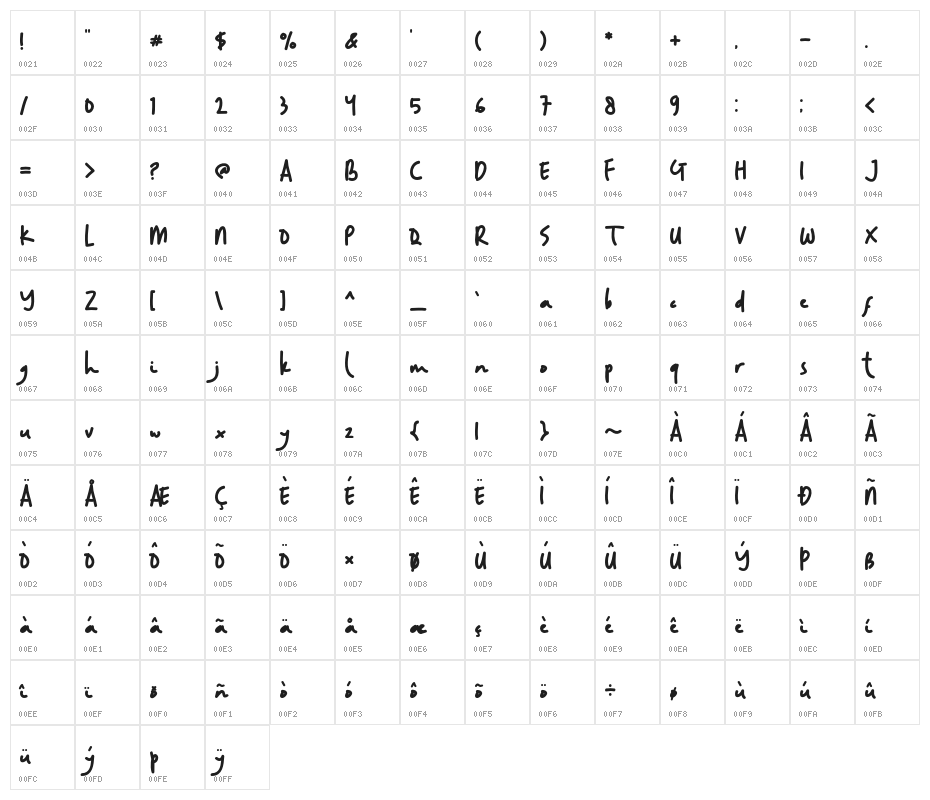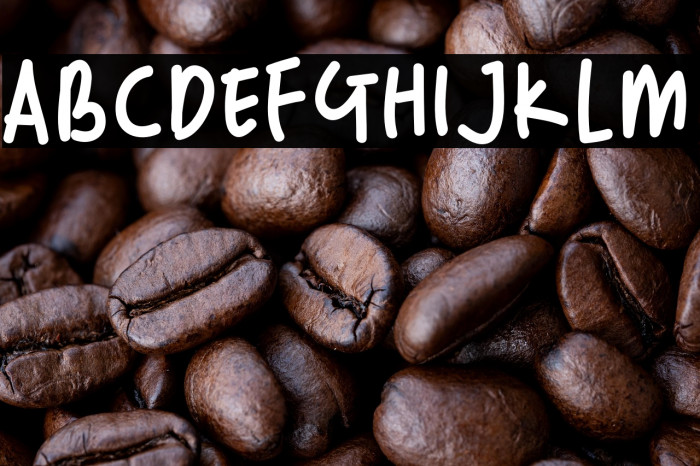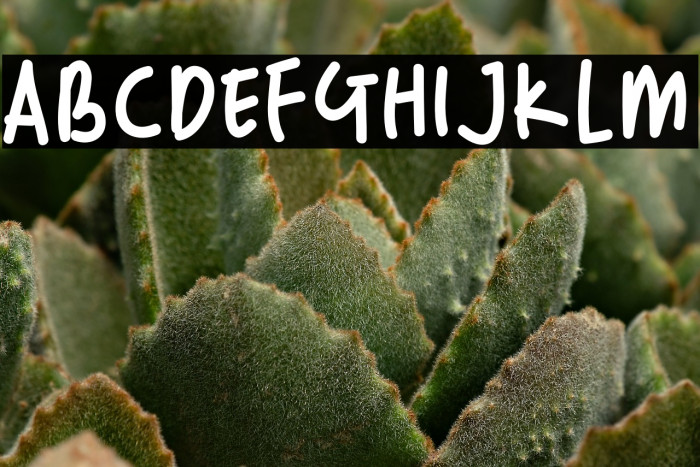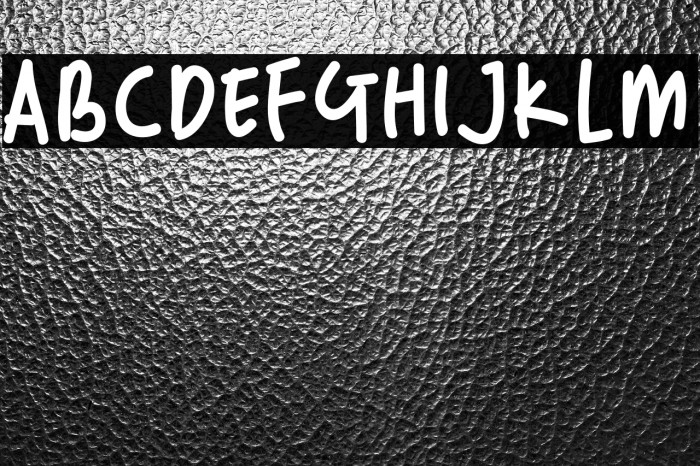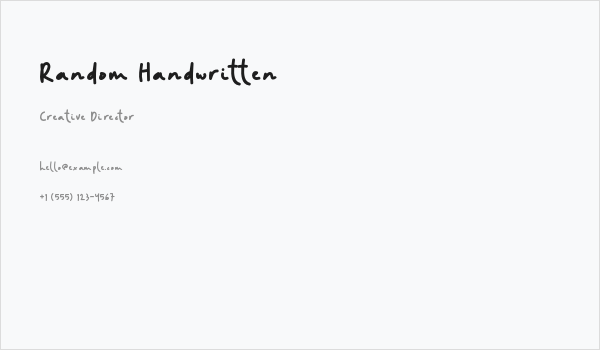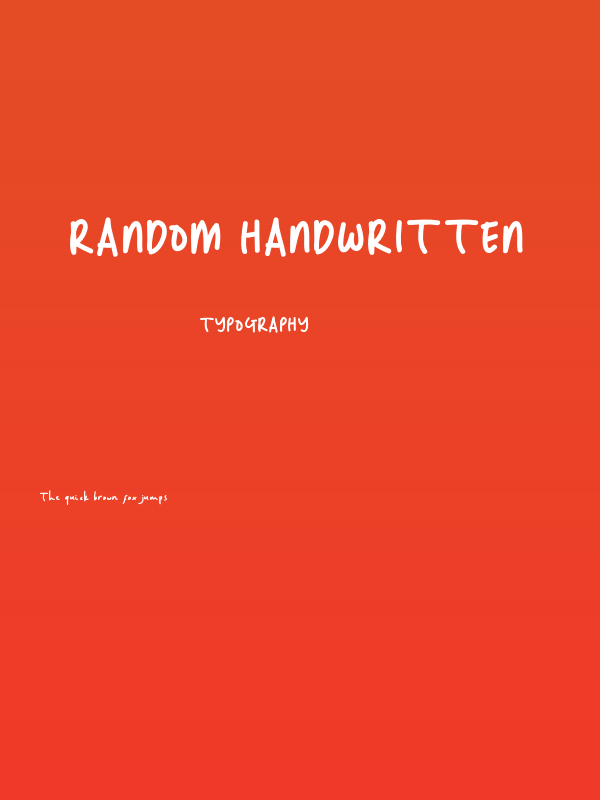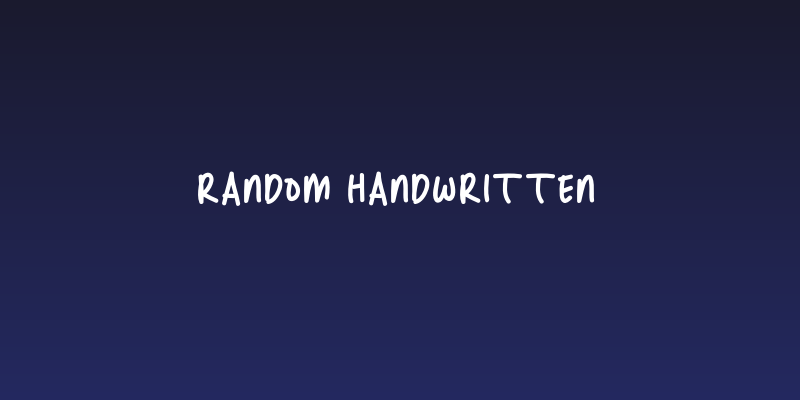
Random Handwritten Font
Random Handwritten Description
This font exhibits a playful and casual handwritten style, characterized by its organic and fluid strokes. The letters are slightly irregular, giving it a personal and informal touch, reminiscent of a quick note or a friendly message. The uppercase and lowercase letters maintain a consistent style, with rounded edges and a slight tilt, enhancing its approachable appearance. The numerals and special characters follow the same design principles, ensuring uniformity across all glyphs. This font is versatile, suitable for projects that require a human touch, such as greeting cards, personal blogs, or creative branding.
| Overall Style | Casual, Playful |
| Use Case | Greeting cards, Personal blogs, Creative branding |
| Proposed Projects | Ideal for greeting cards, personal blogs, creative branding, and informal invitations. |